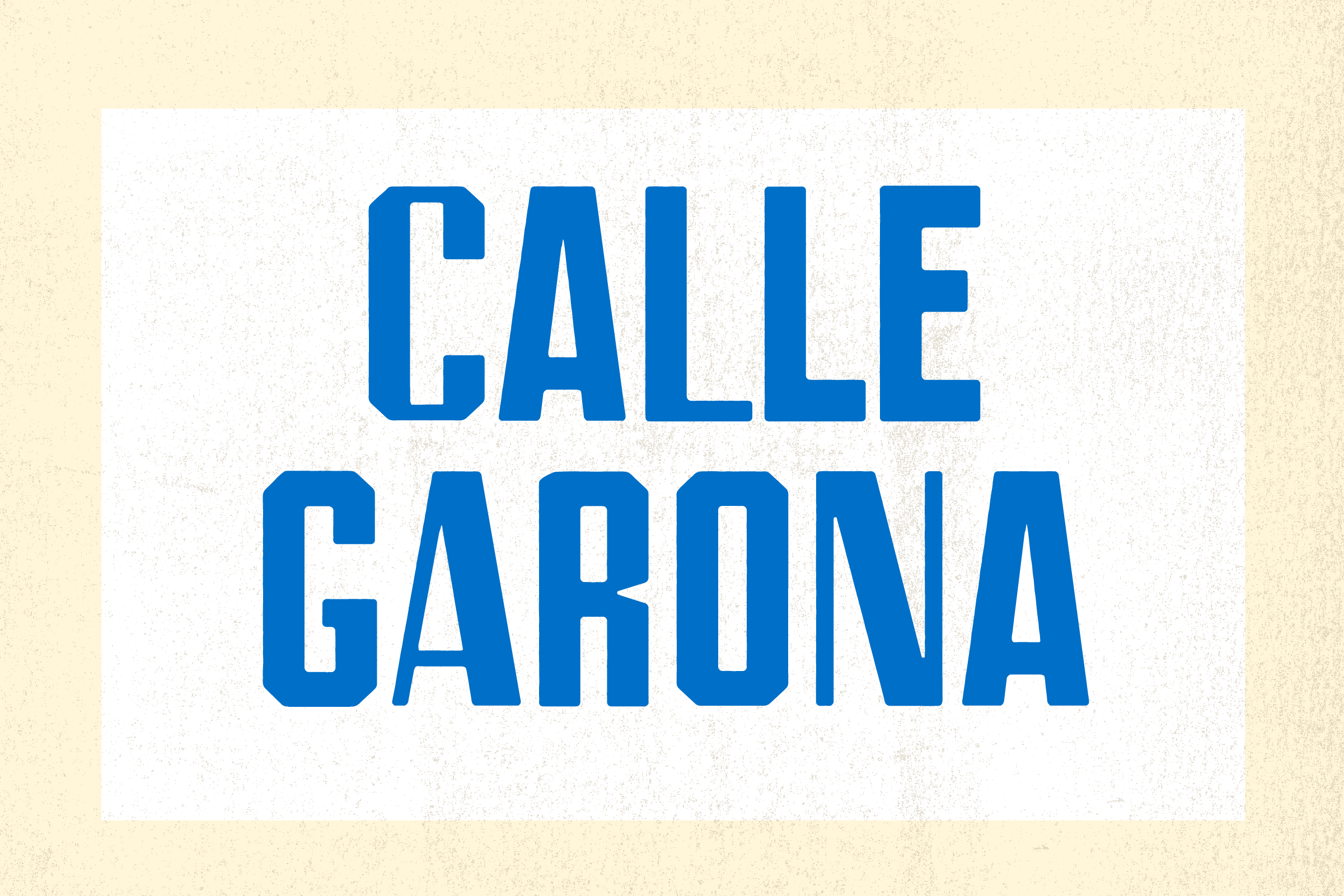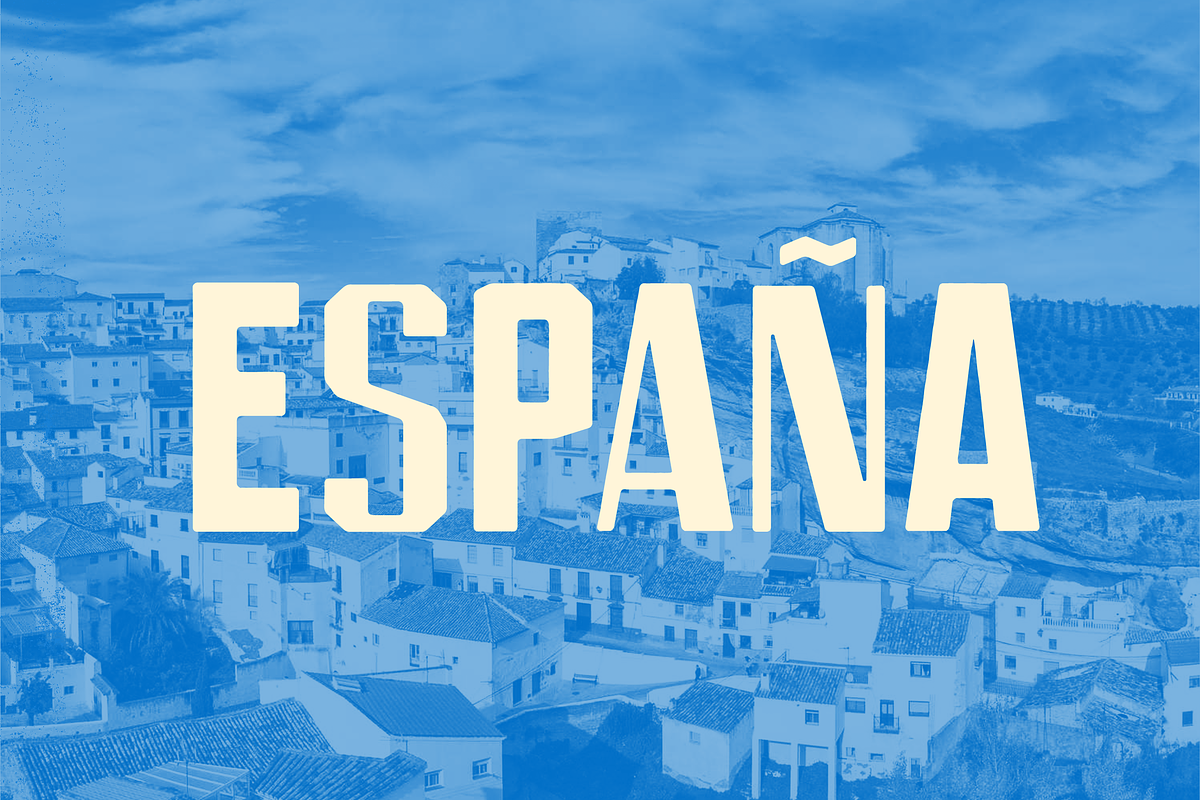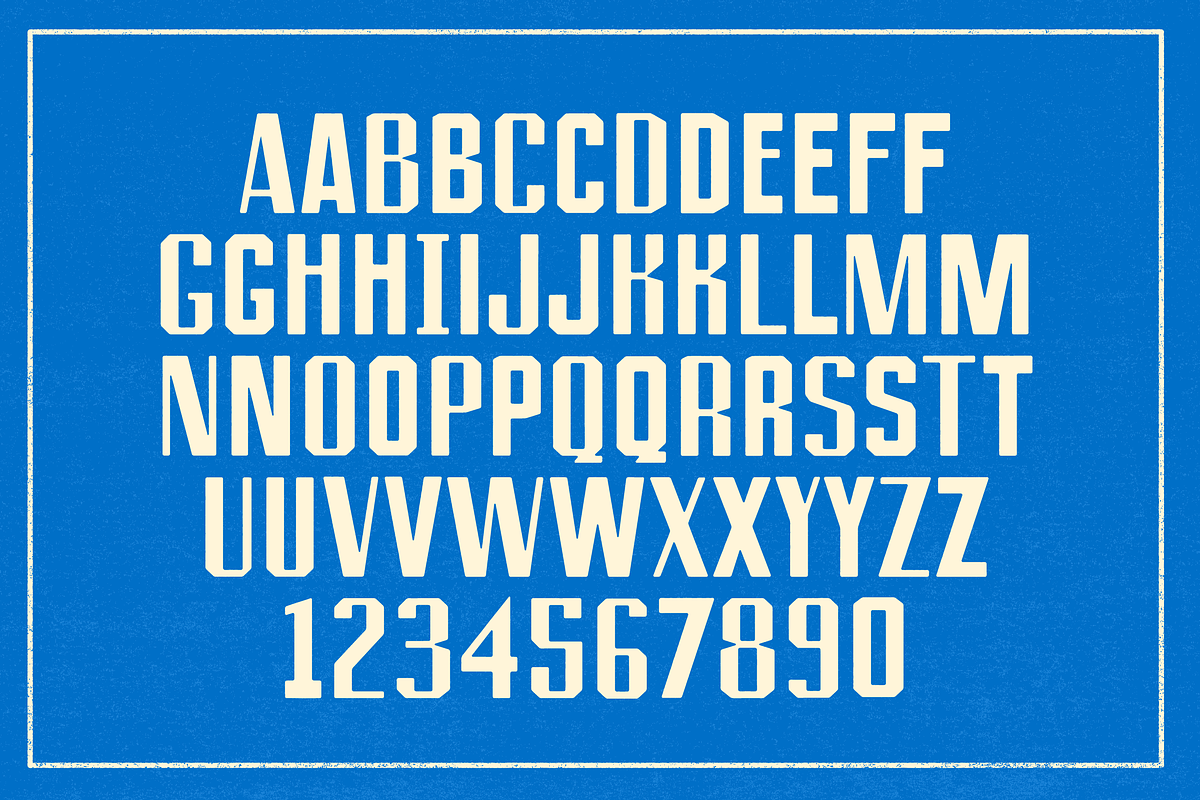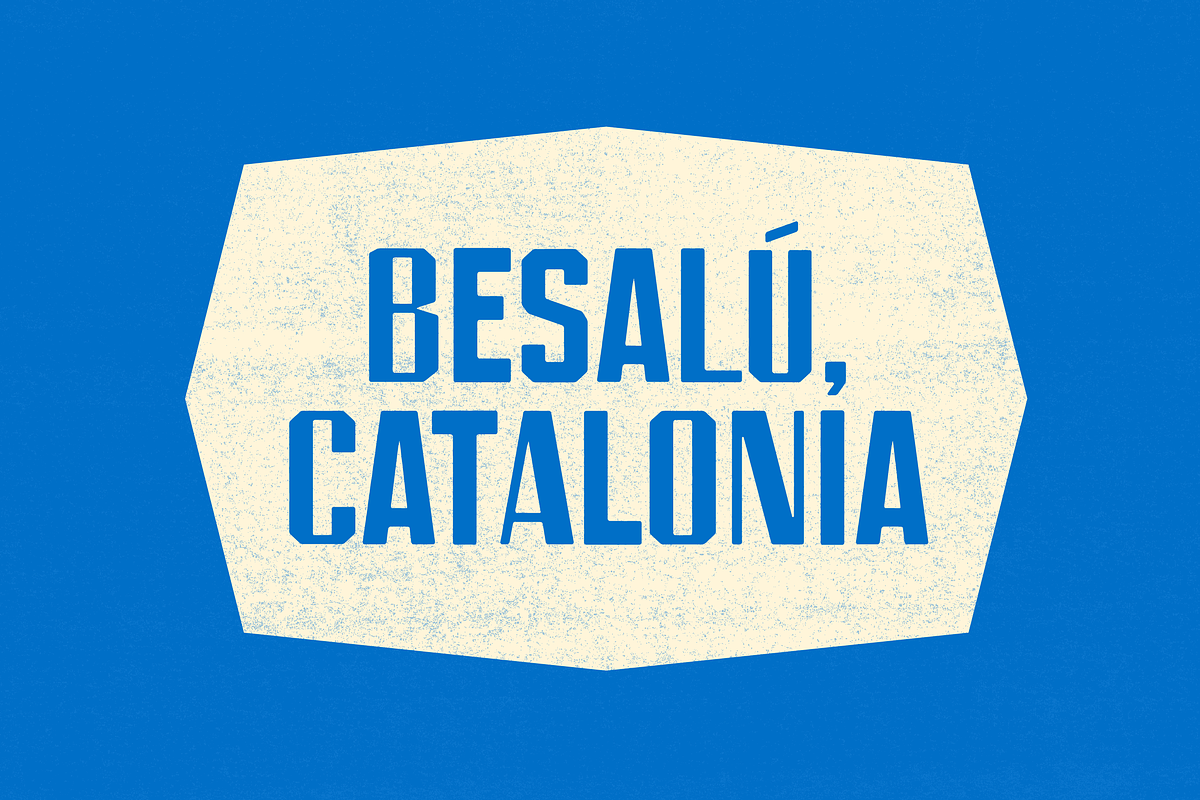
Calle Garona - Spanish inspired Font
A Spanish countryside inspired typeface, Calle Gerona is meant to evoke the charming lettering of a local vernacular, with whimiscal weights and a slight eccentricity.
The typeface features alternating characters for each letter and your standard accented characters and basic punctuation. Perfect for a quirky cafe!